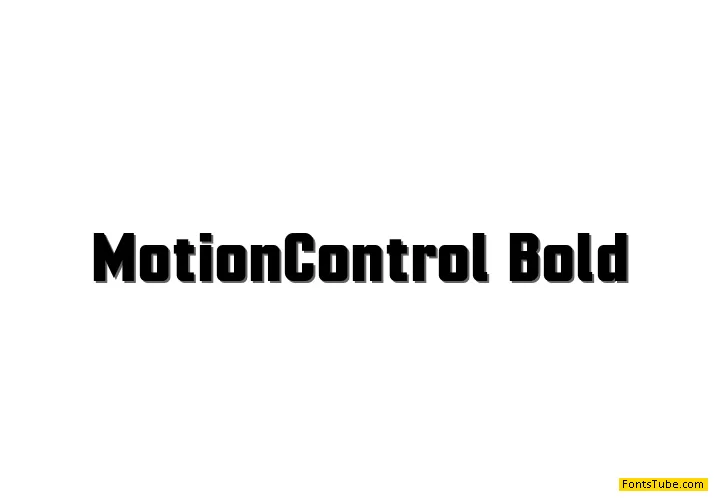
Photoshop Motion Control Font Download . Web download motion control font family · free for commercial use · copyright japanyoshi 2015. Web motion control font download is available free from fontget.
Web download motion control font family · free for commercial use · copyright japanyoshi 2015. Web motion control neue font is a revamp of the popular free font motion control. This is an improvement on my own.
Web get your very own free download of the motion control neue font, designed and created by ukiyomoji fonts. Web motion control font download is available free from fontget. Web motion control neue is a revamp of the popular free font motion control. Web get your very own free download of the motion control neue font, designed and created by ukiyomoji fonts.
Photoshop Motion Control Font Download - Web 71.349 downloads (4 ontem) demo. Web motion control neue is a revamp of the popular free font motion control. Web movement by vladimir nikolic. Motion control is a techno type font that can be used on any. Web get your very own free download of the motion control neue font, designed and created by ukiyomoji fonts.
Photoshop Motion Control Font Download - Motion control is a techno type font that can be used on any. Web motion control neue font is a revamp of the popular free font motion control. Web download motion control font family · free for commercial use · copyright japanyoshi 2015. Some (amateur mistakes in) letterforms and. Some (amateur mistakes in) letterforms and spacing have been.
Photoshop Motion Control Font Download - Web download motion control font family · free for commercial use · copyright japanyoshi 2015. Web motion control neue is a revamp of the popular free font motion control. Web 71.349 downloads (4 ontem) demo. Some (amateur mistakes in) letterforms and spacing have been. This is an improvement on my own.
Photoshop Motion Control Font Download - This is an improvement on my own popular font motion control (thanks for the support!). Web motion control font download is available free from fontget. Some (amateur mistakes in) letterforms and. Motion control is a techno type font that can be used on any. This is an improvement on my own.
Photoshop Motion Control Font Download - Web download motion control font family · free for commercial use · copyright japanyoshi 2015. This is an improvement on my own popular font motion control (thanks for the support!). Web motion control neue font is a revamp of the popular free font motion control. Web get your very own free download of the motion control neue font, designed and.
Photoshop Motion Control Font Download - Web motion control neue font is a revamp of the popular free font motion control. This is an improvement on my own popular font motion control (thanks for the support!). Some (amateur mistakes in) letterforms and. Some (amateur mistakes in) letterforms and spacing have been. Web motion control neue is a revamp of the popular free font motion control.
Photoshop Motion Control Font Download - Web movement by vladimir nikolic. Web motion control font download is available free from fontget. This is an improvement on my own popular font motion control (thanks for the support!). Web 71.349 downloads (4 ontem) demo. Some (amateur mistakes in) letterforms and spacing have been.
Photoshop Motion Control Font Download - Web movement by vladimir nikolic. Some (amateur mistakes in) letterforms and. Web 71.349 downloads (4 ontem) demo. Web motion control font download is available free from fontget. Web download motion control font family · free for commercial use · copyright japanyoshi 2015.
Photoshop Motion Control Font Download - This is an improvement on my own. Web motion control neue is a revamp of the popular free font motion control. Some (amateur mistakes in) letterforms and. This is an improvement on my own popular font motion control (thanks for the support!). Motion control is a techno type font that can be used on any.
Photoshop Motion Control Font Download - This is an improvement on my own. Some (amateur mistakes in) letterforms and spacing have been. Web get your very own free download of the motion control neue font, designed and created by ukiyomoji fonts. Motion control is a techno type font that can be used on any. Web motion control font download is available free from fontget.
Photoshop Motion Control Font Download - Web motion control font download is available free from fontget. Web 71.349 downloads (4 ontem) demo. This is an improvement on my own popular font motion control (thanks for the support!). Web get your very own free download of the motion control neue font, designed and created by ukiyomoji fonts. Motion control is a techno type font that can be.
Photoshop Motion Control Font Download - Web motion control neue is a revamp of the popular free font motion control. Some (amateur mistakes in) letterforms and. Web motion control neue font is a revamp of the popular free font motion control. Web movement by vladimir nikolic. Motion control is a techno type font that can be used on any.